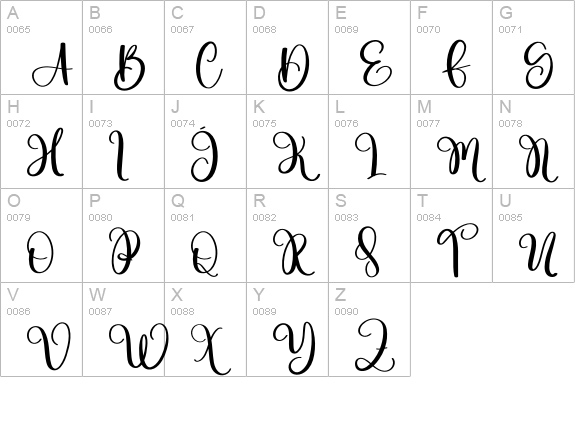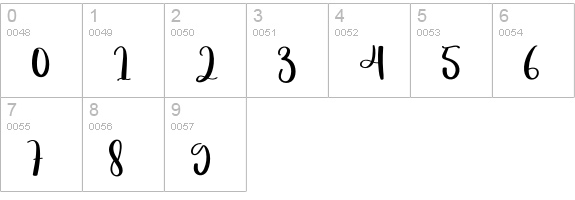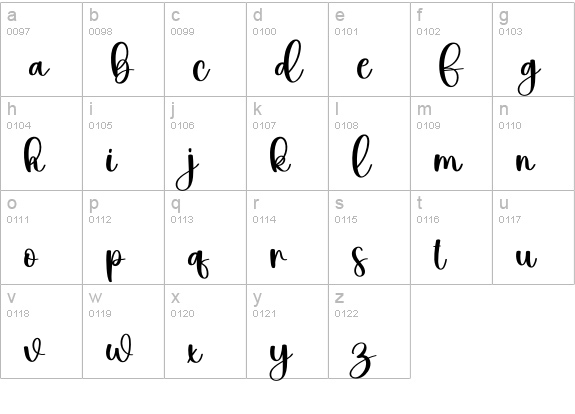
Narrative Font Details
Narrative is a free for personal use font in the Script > Handwritten category, designed by scratchones. It has been downloaded 39 times and is available for Windows, Mac and Linux.
Introducing Narrative Font, a versatile and elegant typeface that exudes sophistication and charm. With its clean lines and contemporary design, Narrative Font is perfect for a wide range of creative projects, from branding to editorial design to packaging. Its timeless appeal and readability make it a popular choice among designers and creatives looking to add a touch of class to their work.